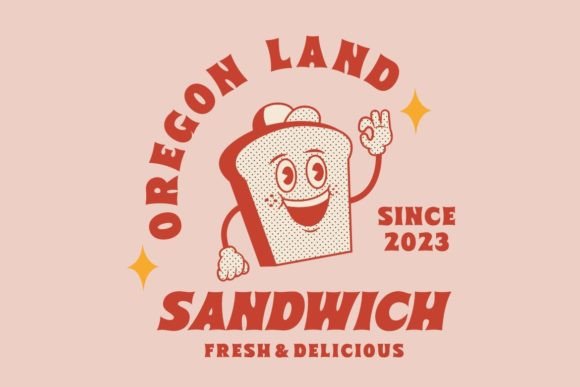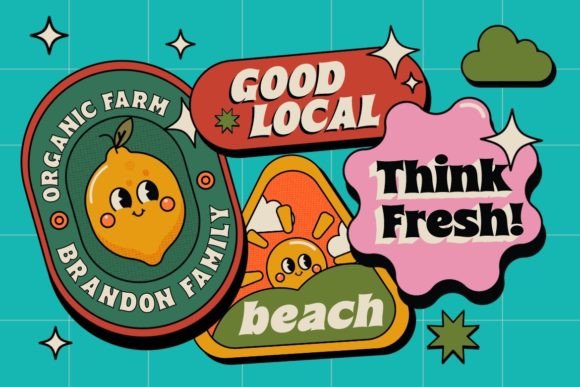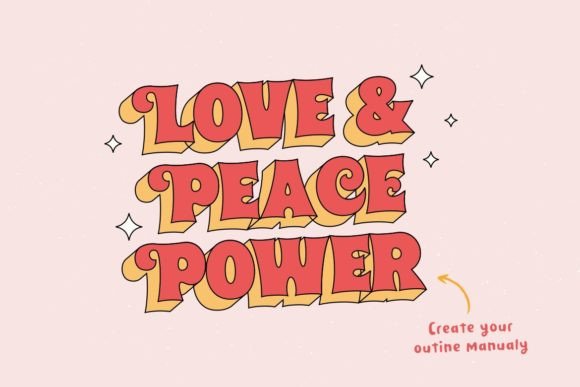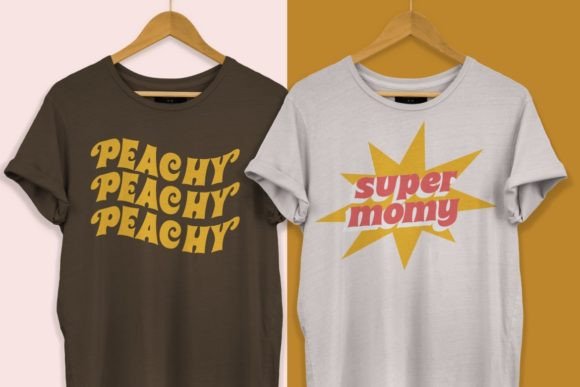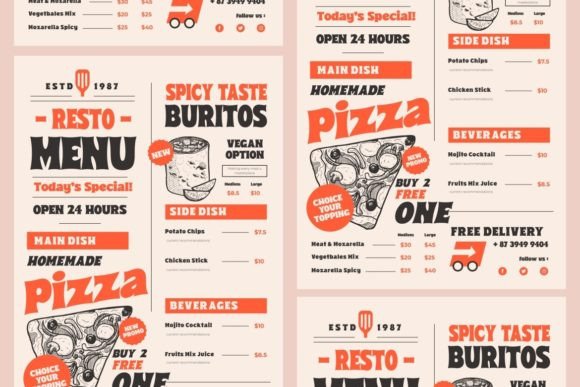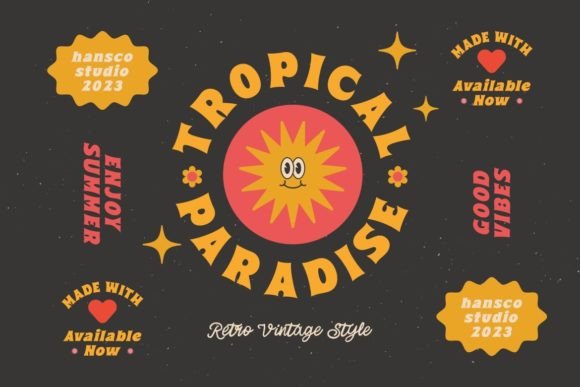
Introduction to Angel Club Font
Angel Club font is a retro serif and bold display font.
You will get four types of fonts in this pack, Regular, slanted and Shadow version Use this display font to add that special retro touch to any design idea you can think of.
Key Features of Angel Club Font